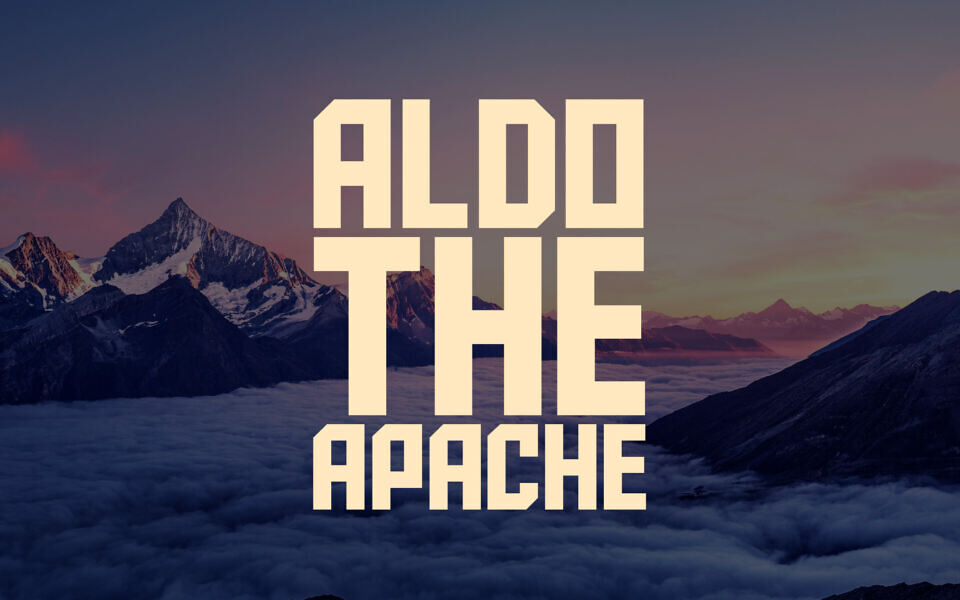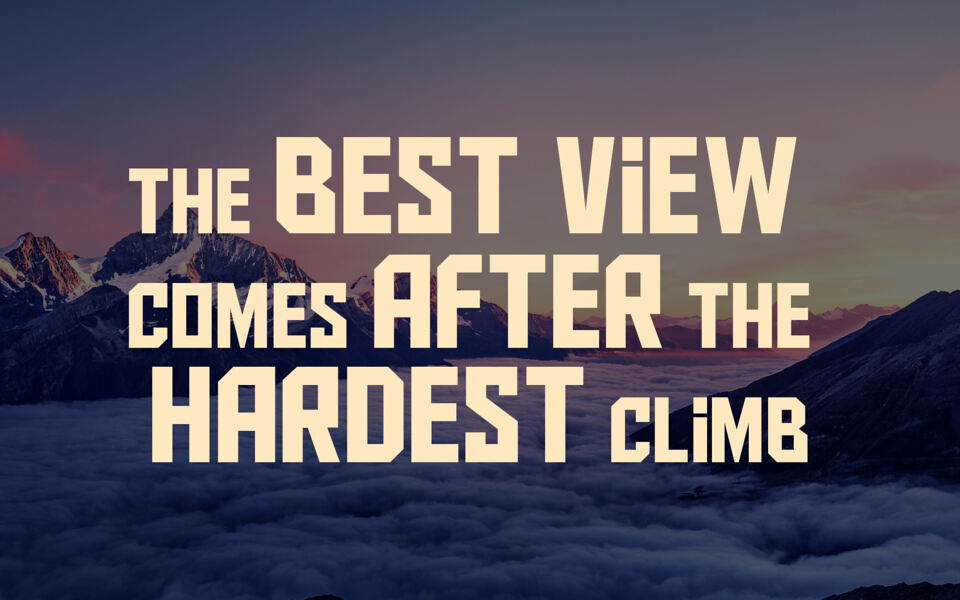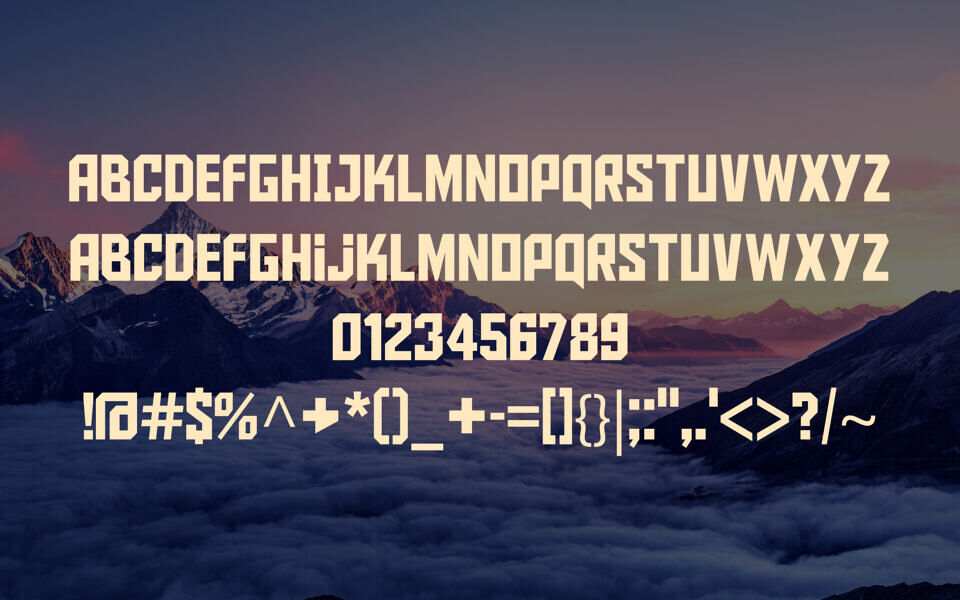
Aldo the Apache Font
Aldo the Apache is a bold, geometric display font designed by AJ Paglia. Featuring thick, square letterforms with sharp angles, it evokes a modern, tech-inspired aesthetic.
The font includes both uppercase and lowercase characters with consistent weight, making it ideal for logos, posters, headlines, and other attention-grabbing designs. Its strong, structured style conveys power and clarity.